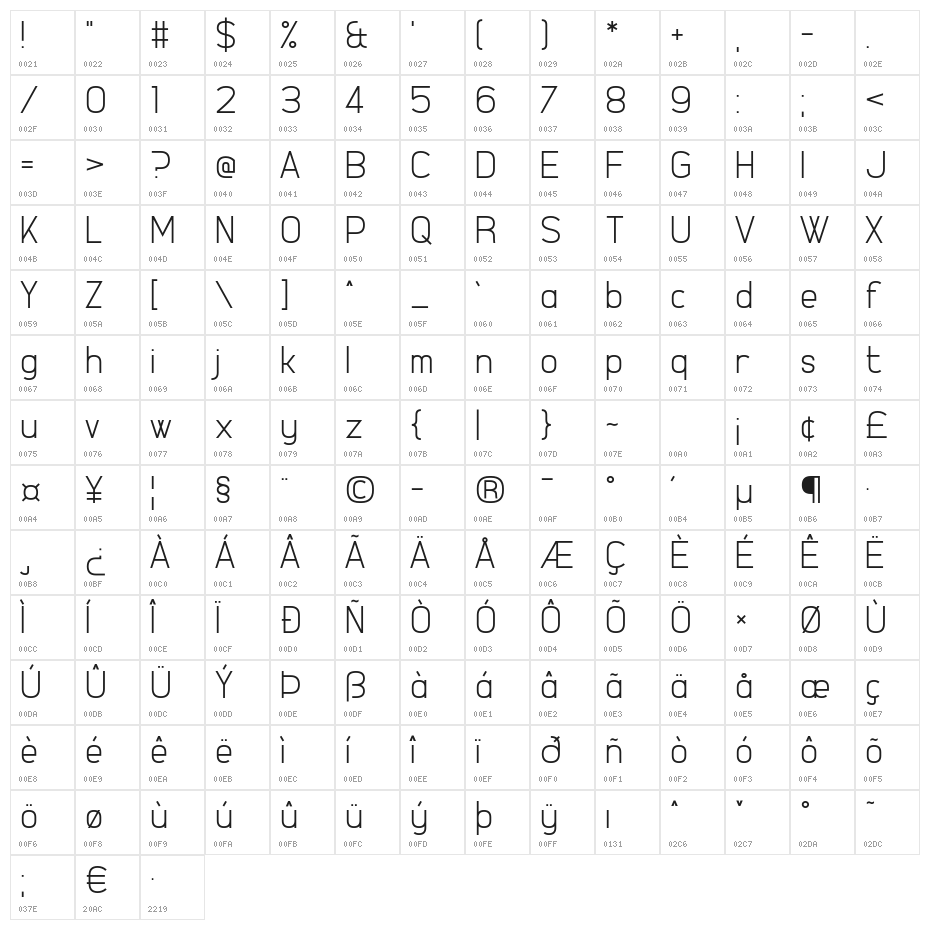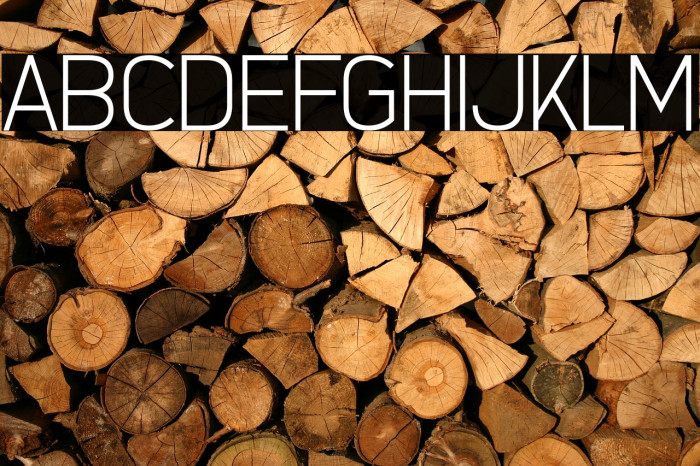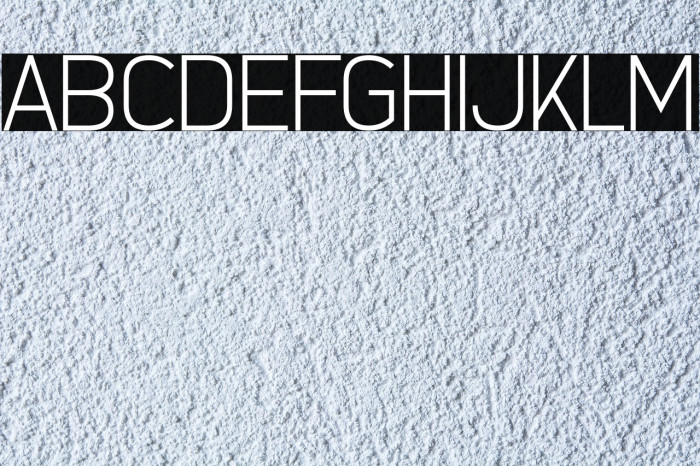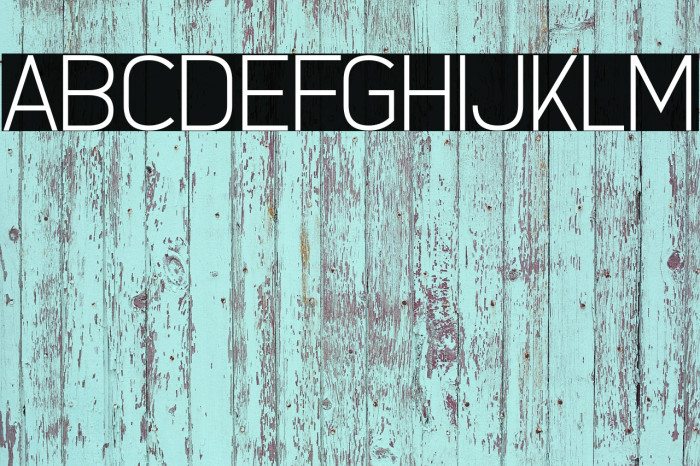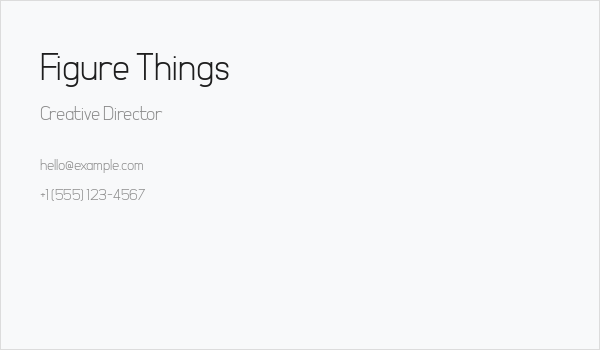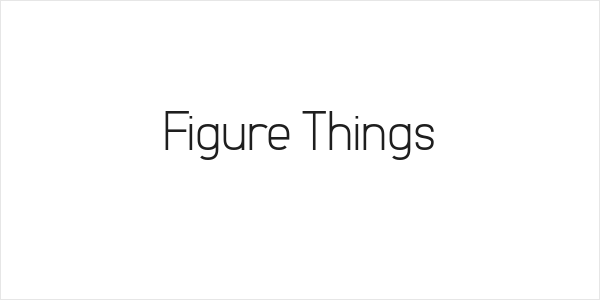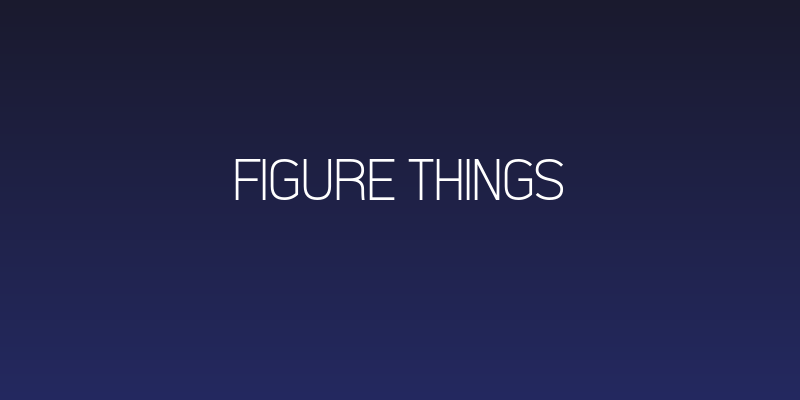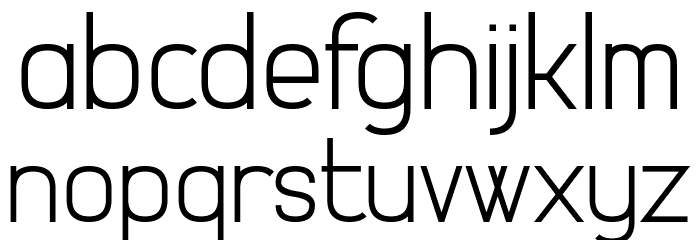
Figure Things Font
Figure Things Description
This font is a modern sans-serif typeface characterized by its clean and minimalistic design. The letters are uniform in weight, offering a sleek and contemporary appearance. The uppercase and lowercase characters maintain a consistent geometric structure, providing a harmonious and balanced look. The numerals are clear and easily readable, making them suitable for various applications. Special characters are well-defined, enhancing the font's versatility. The overall design is straightforward, with a focus on clarity and simplicity, making it ideal for digital and print media.
| Proposed Projects | Ideal for branding, web design, corporate materials, and user interfaces. |